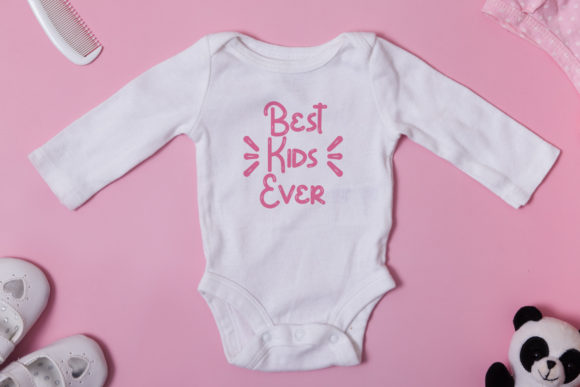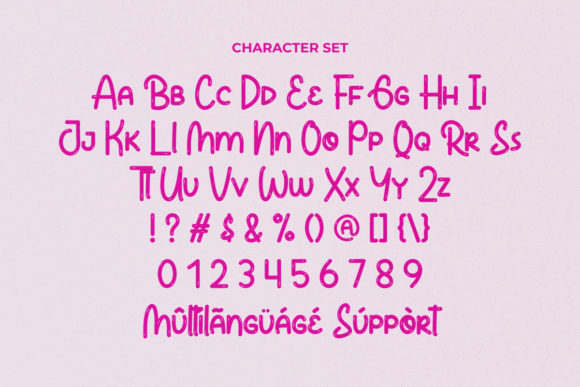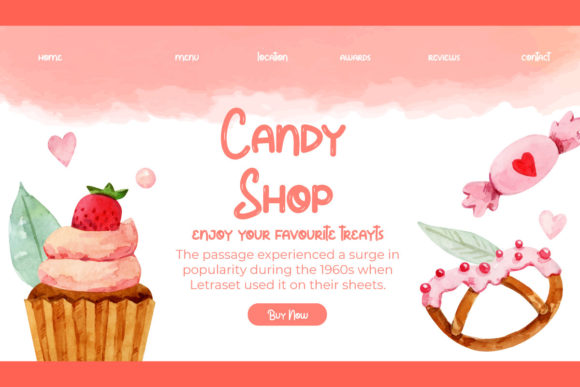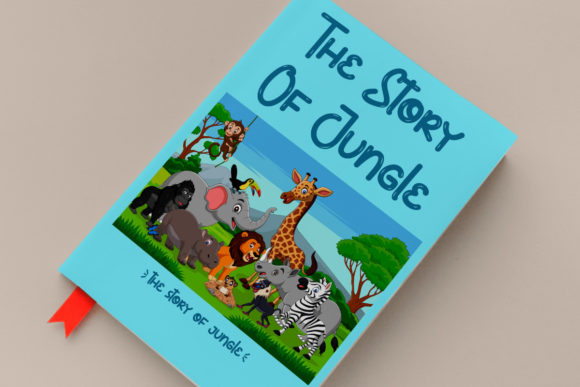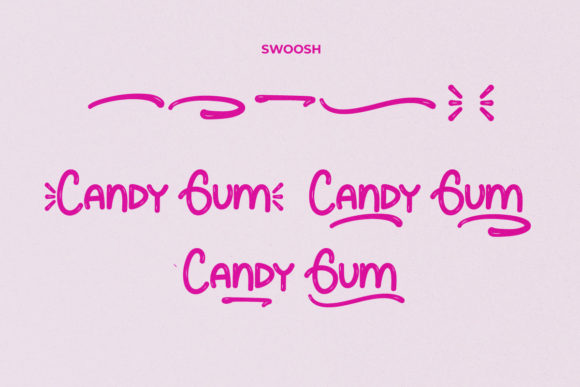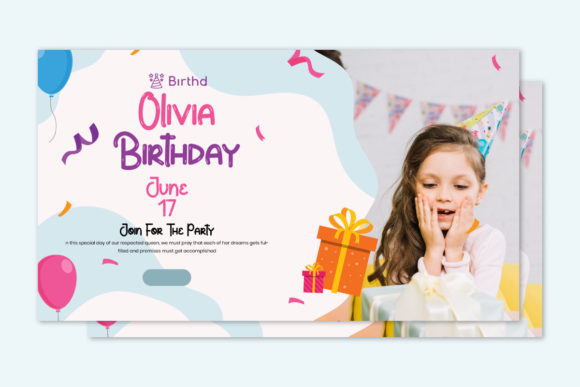
Candy Gum Font: The Sweetest Addition to Your Design Collection
Are you tired of using the same old fonts in your designs? Look no further than the Candy Gum Font, a shiny display font that’s sure to impress with its unique and playful characters. This versatile font is perfect for a wide range of creative projects, from promotional designs and events to marketing, branding, social media, food labels, and more.
What Makes Candy Gum Font So Special?
Candy Gum Font is a one-of-a-kind display font that’s designed to add a touch of fun and whimsy to your designs. Its shiny, colorful appearance is sure to grab attention and make your projects stand out from the crowd. The font’s unique characters are carefully crafted to evoke the feeling of sweet treats, making it perfect for food-related designs, such as candy, ice cream, or bakery labels.
Uses for Candy Gum Font
The possibilities are endless when it comes to using Candy Gum Font. Here are just a few ideas to get you started:
• Promotional Designs: Use Candy Gum Font to create eye-catching posters, flyers, or brochures that will grab attention and leave a lasting impression.
• Events: Make your event branding stand out with Candy Gum Font, perfect for concerts, festivals, or parties.
• Marketing: Add a touch of fun and playfulness to your marketing materials, such as business cards, letterheads, or social media graphics.
• Branding: Use Candy Gum Font to create a unique and memorable brand identity that’s sure to stick in customers’ minds.
• Social Media: Add some sweetness to your social media posts with Candy Gum Font, perfect for creating engaging graphics or quote images.
• Food Labels: Make your food labels stand out with Candy Gum Font, perfect for candy, baked goods, or other sweet treats.
Why Designers and Crafters Love Candy Gum Font
Candy Gum Font is a favorite among designers and crafters for its versatility and ease of use. Here are just a few reasons why:
• Easy to Read: Despite its playful appearance, Candy Gum Font is surprisingly easy to read, making it perfect for use in a variety of contexts.
• Highly Versatile: Candy Gum Font can be used for both digital and print projects, making it a great addition to any design collection.
• Customizable: With its unique characters and shiny appearance, Candy Gum Font can be easily customized to fit your brand’s style and aesthetic.
Tips for Using Candy Gum Font
Here are a few tips for getting the most out of Candy Gum Font:
• Use it Sparingly: While Candy Gum Font is sure to grab attention, it’s best used sparingly to avoid overwhelming your design.
• Pair it with Other Fonts: Experiment with pairing Candy Gum Font with other fonts to create a unique and visually appealing design.
• Play with Colors: Don’t be afraid to experiment with different colors and textures to really make your design pop.
In conclusion, Candy Gum Font is a sweet and versatile addition to any design collection. With its unique and playful characters, shiny appearance, and ease of use, it’s perfect for a wide range of creative projects. Whether you’re a designer, crafter, or simply someone who loves sweet treats, Candy Gum Font is sure to bring a smile to your face and a touch of fun to your designs.